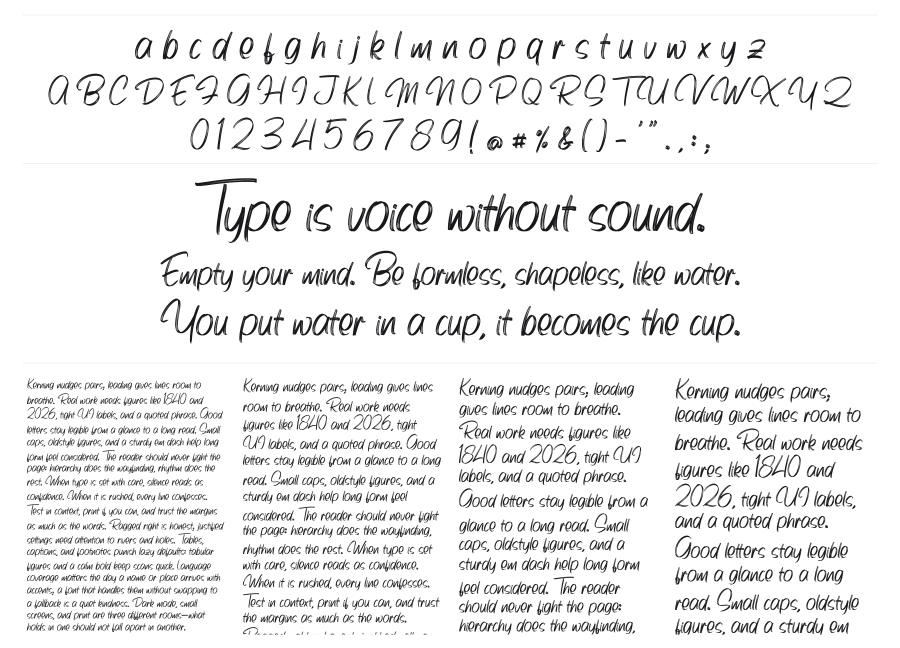
Bonitto
Bonitto is a casual brush script from Omotu Studio with a loose, hand-painted energy and natural bristle texture throughout. The flowing connections and gently irregular baseline give it an authentic handmade quality that feels alive rather than polished. It works well for branding, packaging, and any headline that needs warmth and personality.